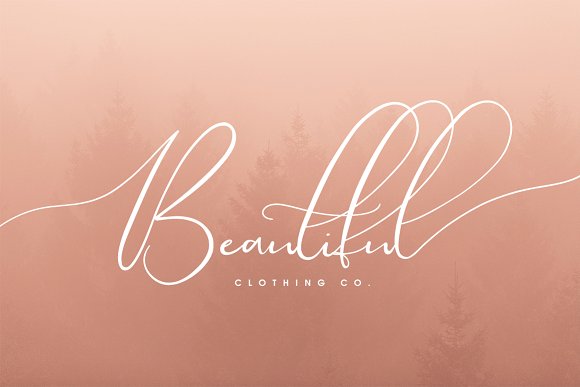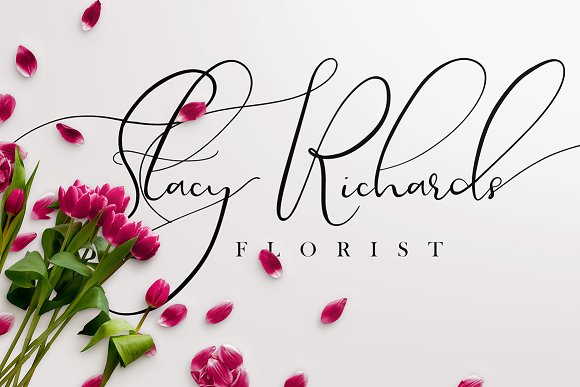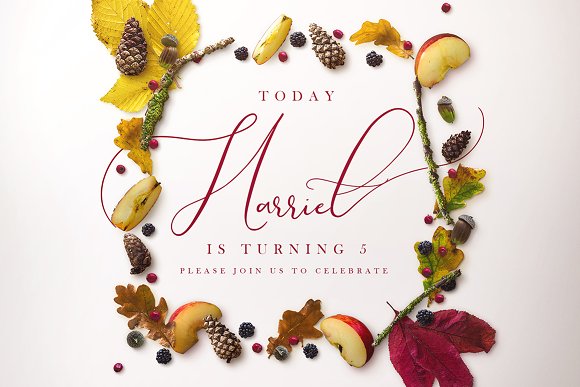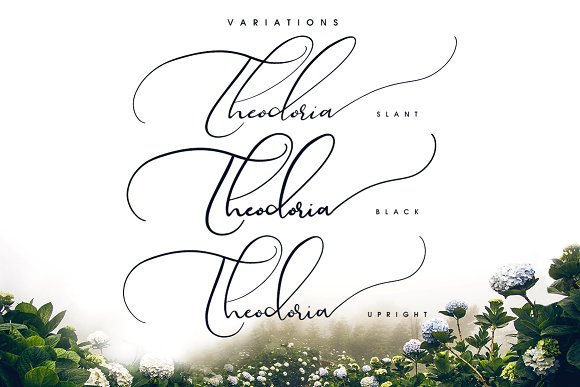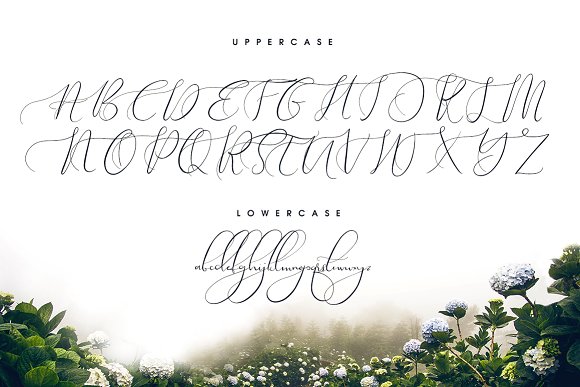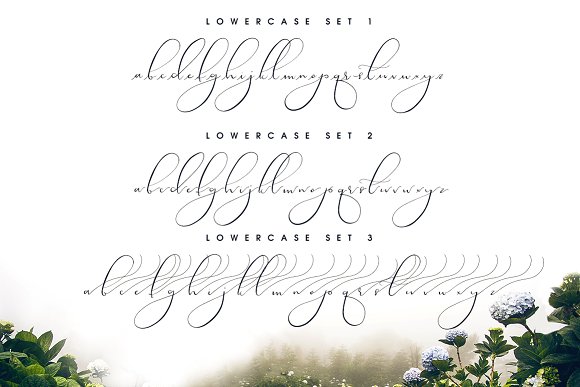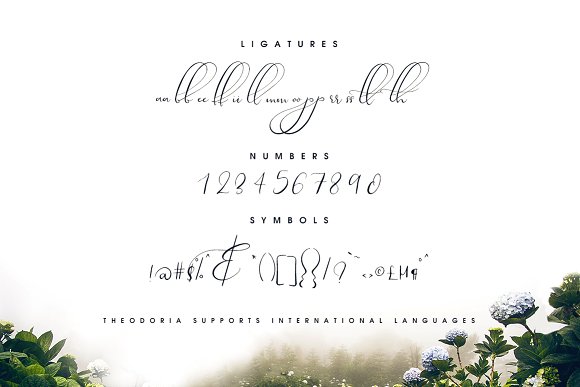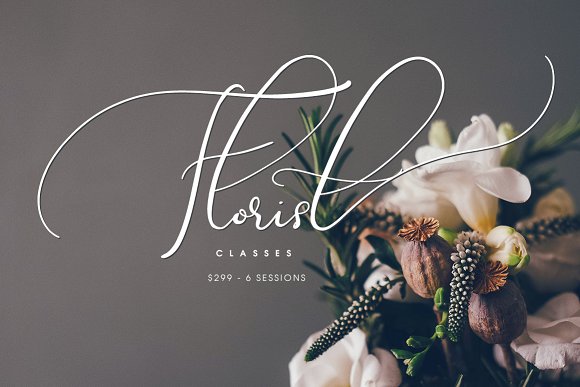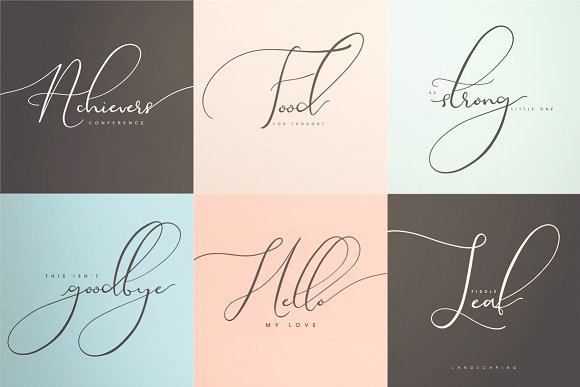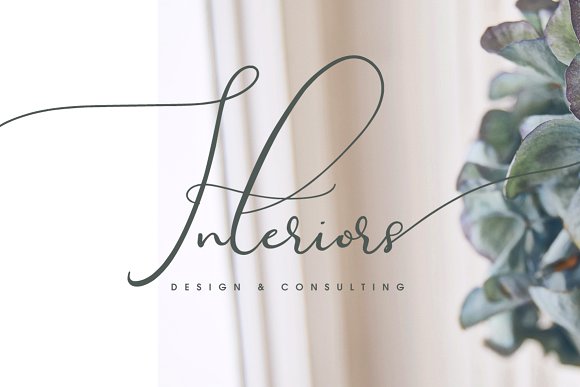
HomeScript FontsTheodoria Font Script Fonts Theodoria Font FacebookXPinterestWhatsApp Theodoria Font Poster 2 Theodoria Font Poster 3 Theodoria Font Poster 4 Theodoria Font Poster 5 Theodoria Font Poster 6 Theodoria Font Poster 7 Theodoria Font Poster 8 Theodoria Font Poster 9 Theodoria Font Poster 10 Theodoria Font Poster 11 Theodoria Font Poster 12 Theodoria Font Poster 13 Theodoria Font Poster 14 Theodoria Font Poster 15 About Theodoria Font Theodoria is a beautiful handcrafted font created by Creativeqube. DOWNLOAD NOW People also explored Rafaela Belaria Font Fleuraloha Framboisier Xecrian Font Daisy Facthory Font Smile is Beautiful Font The Thuressia Script Font Darling Magenta Ontime Font 279 0 TagsTheodoria Font Previous articleThird Storey FontNext articleTantrums Font LEAVE A REPLY Cancel reply Comment: Please enter your comment! Name:* Please enter your name here Email:* You have entered an incorrect email address! Please enter your email address here Website: Save my name, email, and website in this browser for the next time I comment. Personal Use Free BD Console Personal Use Free Read more about this font Austin Personal Use Free Read more about this font Beautiful Personal Use Free Read more about this font Hatchill Personal Use Free Read more about this font BLOG Using Fonts in Digital Marketing: Tips to Strengthen Your Brand Identity In the realm of digital marketing, every visual element plays a crucial role in shaping a brand's identity, and fonts are no exception. The... Transform Your Website: Elevate Your Typography with 7 Best Web Font Generators Top 10 Handwritten Fonts That Elevate Your Designs Modern Sans-Serif Fonts That Brands Love in 2025